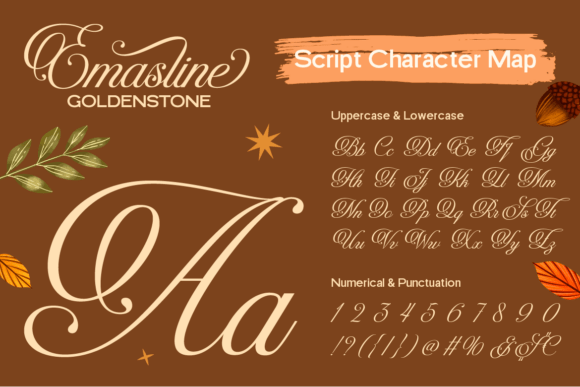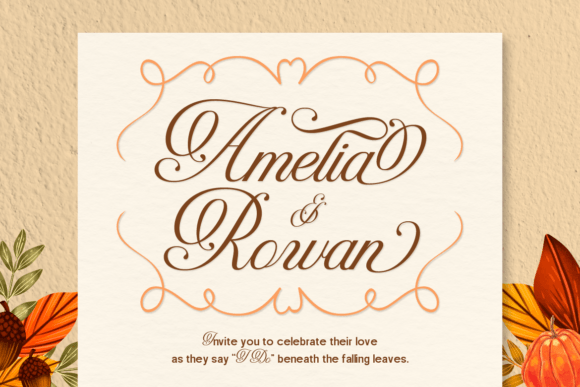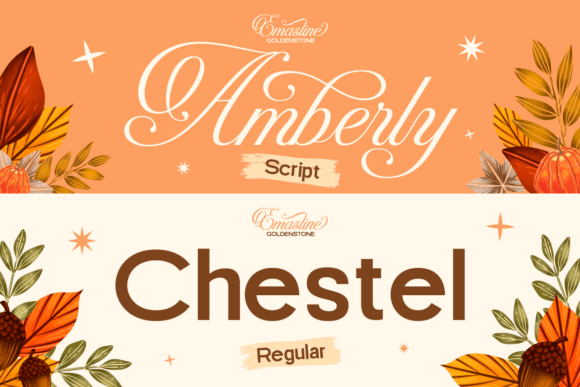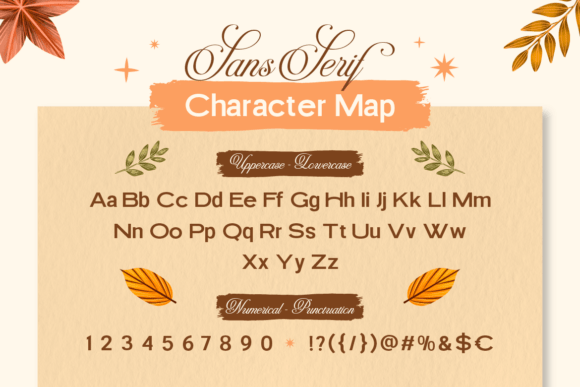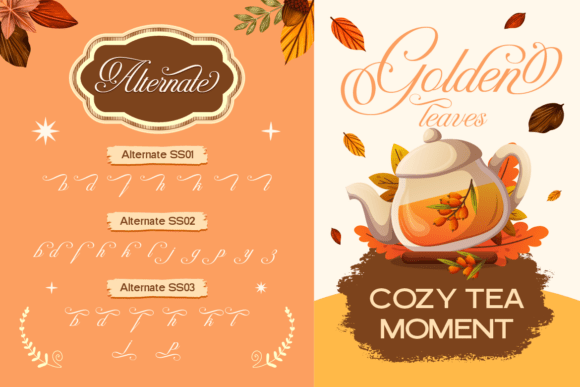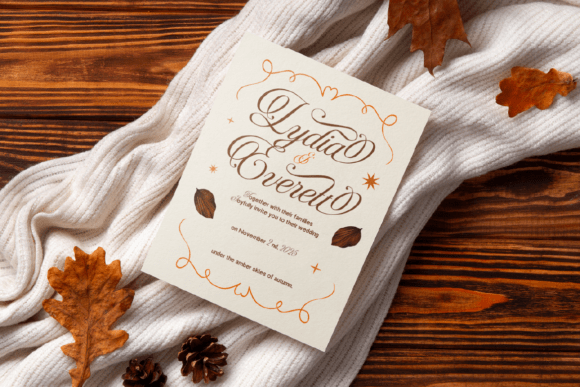
Introducing Emasline Goldenstone: The Cozy Font for Autumn Designs
As the seasons change and autumn leaves start to fall, designers and crafters are on the lookout for fonts that evoke the warm, cozy feelings of this special time of year. Say hello to Emasline Goldenstone, a duo font that feels like a warm cup of tea on a crisp autumn afternoon. This beautiful font combines a graceful script and a modern sans serif, making it perfect for cozy seasonal designs, wedding invitations, fall branding, or anything that needs that “golden hour” touch.
The Perfect Blend of Script and Sans Serif
Emasline Goldenstone is a unique duo font that brings together the elegance of a script font and the modernity of a sans serif font. The script font features flowing letters that feel like falling leaves, with elegant alternates and swashes to make your words look charming. The sans serif font, on the other hand, provides a clean and modern contrast that adds a touch of sophistication to your designs.
Cozy Seasonal Designs
Whether you’re designing a Thanksgiving menu, a greeting card, or packaging for your homemade treats, Emasline Goldenstone brings that heartwarming, nostalgic vibe to your work. The font’s autumnal feel is perfect for seasonal designs that need to evoke a sense of coziness and warmth. Imagine wrapping your designs in the warmth of autumn colors, with Emasline Goldenstone as the perfect complement to your creative vision.
Wedding Invitations and Fall Branding
Emasline Goldenstone is also an excellent choice for wedding invitations and fall branding. The font’s elegant script and modern sans serif combination makes it perfect for formal and informal designs alike. Add a touch of autumnal charm to your wedding invitations, or use the font to create a cohesive brand identity for your fall-themed products or services.
Elegant Alternates and Swashes
One of the standout features of Emasline Goldenstone is its elegant alternates and swashes. These flourishes add a touch of sophistication and whimsy to your designs, making them perfect for a wide range of applications. From formal invitations to playful packaging, the font’s alternates and swashes will help you create beautiful, eye-catching designs that stand out from the crowd.
Classy yet Friendly
Emasline Goldenstone is a font that effortlessly balances class and friendliness. It’s perfect for designers and crafters who want to create designs that feel both sophisticated and approachable. Whether you’re designing for a high-end brand or a small business, this font will help you create beautiful designs that resonate with your audience.
Tips for Using Emasline Goldenstone
Here are a few tips for getting the most out of Emasline Goldenstone:
- Use the script font for headings and titles, and the sans serif font for body text.
- Experiment with the font’s elegant alternates and swashes to add a touch of whimsy to your designs.
- Pair Emasline Goldenstone with autumnal colors like orange, yellow, and red to create a cohesive seasonal look.
- Use the font for a wide range of applications, from wedding invitations to packaging and branding.
Emasline Goldenstone is a beautiful duo font that’s perfect for designers and crafters who want to create cozy, autumnal designs. With its elegant script and modern sans serif combination, this font is sure to evoke the warm, fuzzy feelings of the season. Whether you’re designing for a wedding, a fall festival, or simply want to add a touch of autumnal charm to your work, Emasline Goldenstone is the perfect choice.
Get Ready to Fall in Love with Emasline Goldenstone
So why wait? Get ready to fall in love with Emasline Goldenstone, and bring a touch of autumnal magic to your designs. With its unique blend of script and sans serif, elegant alternates and swashes, and cozy seasonal feel, this font is sure to become a favorite in your design toolkit.